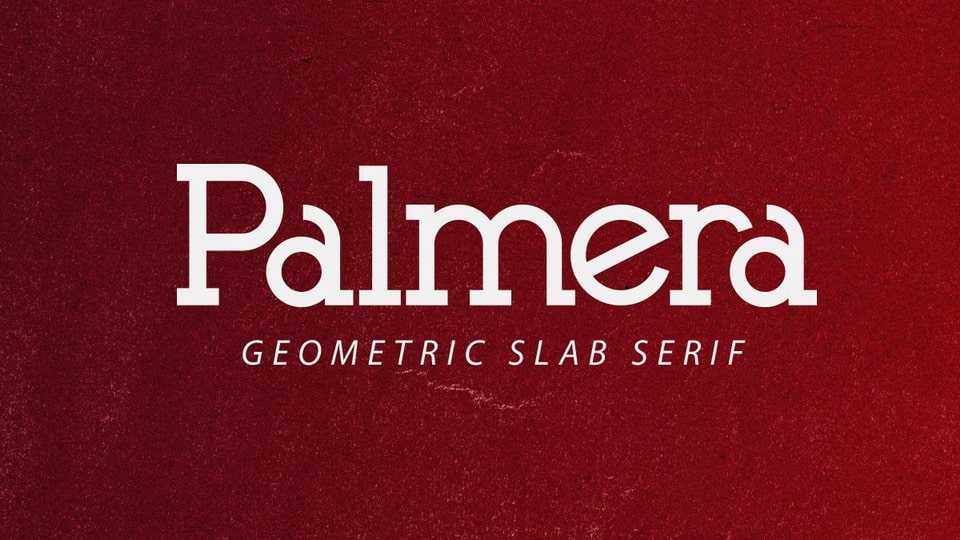
Download Palmera font, a geometric slab serif typeface. Simple and sharp-looking, this typeface will truly inspire you to create spectacular designs that will impress everyone.